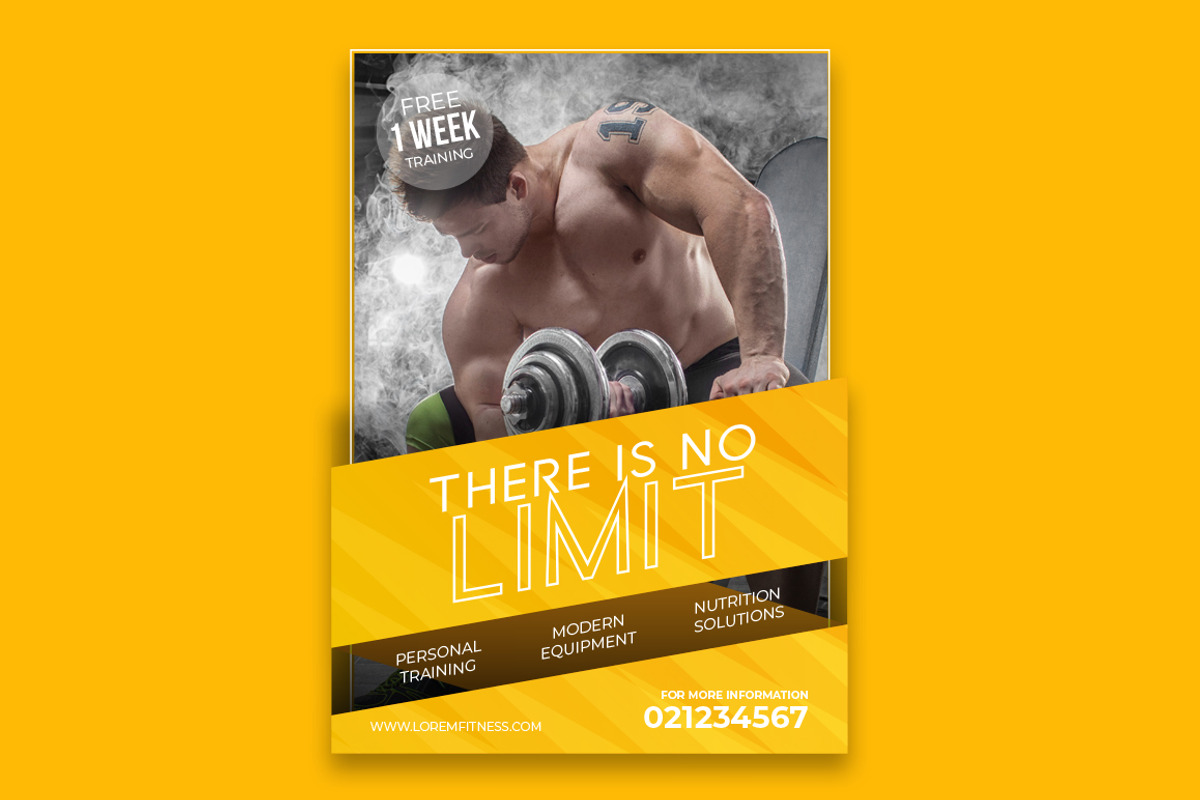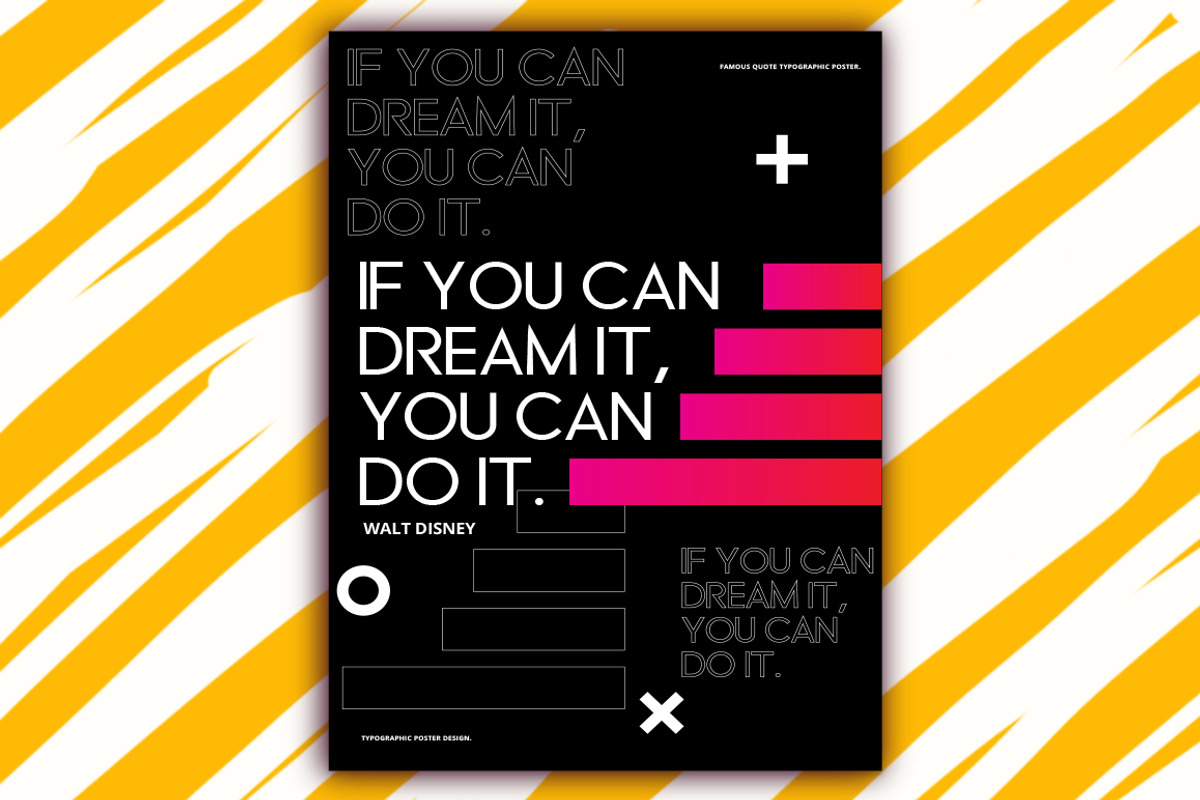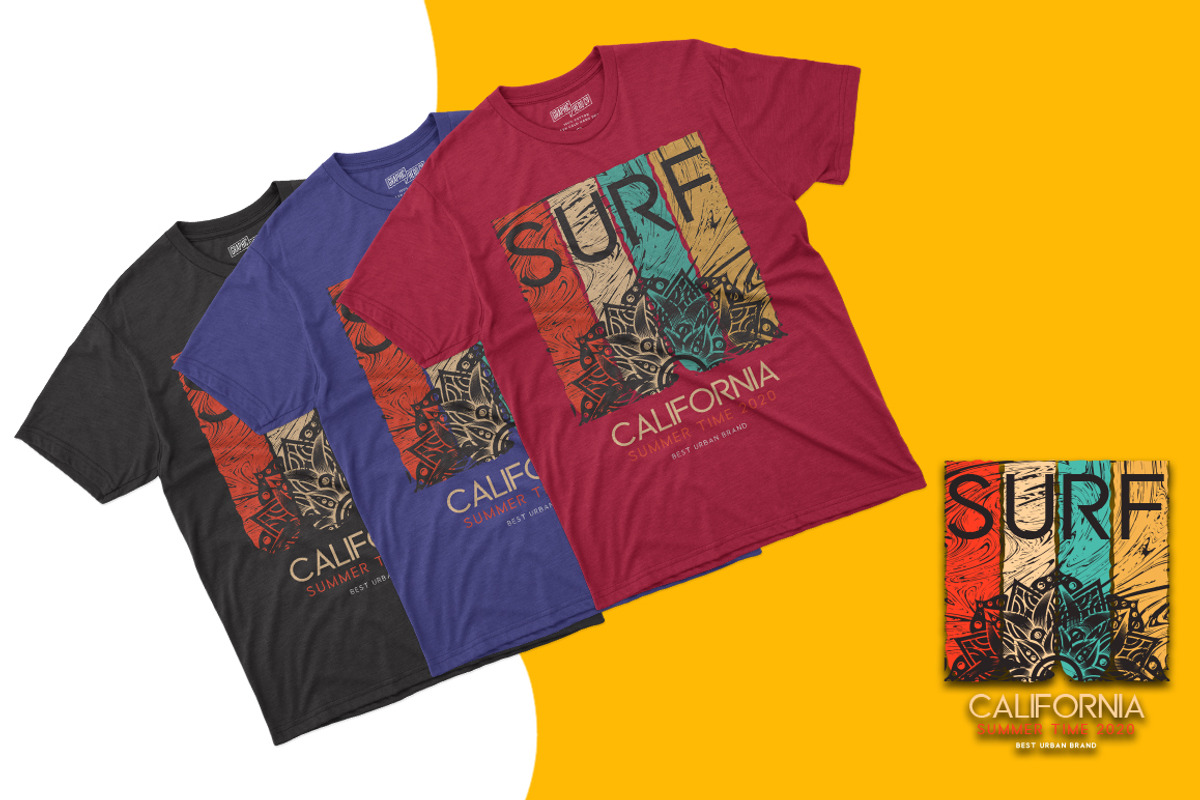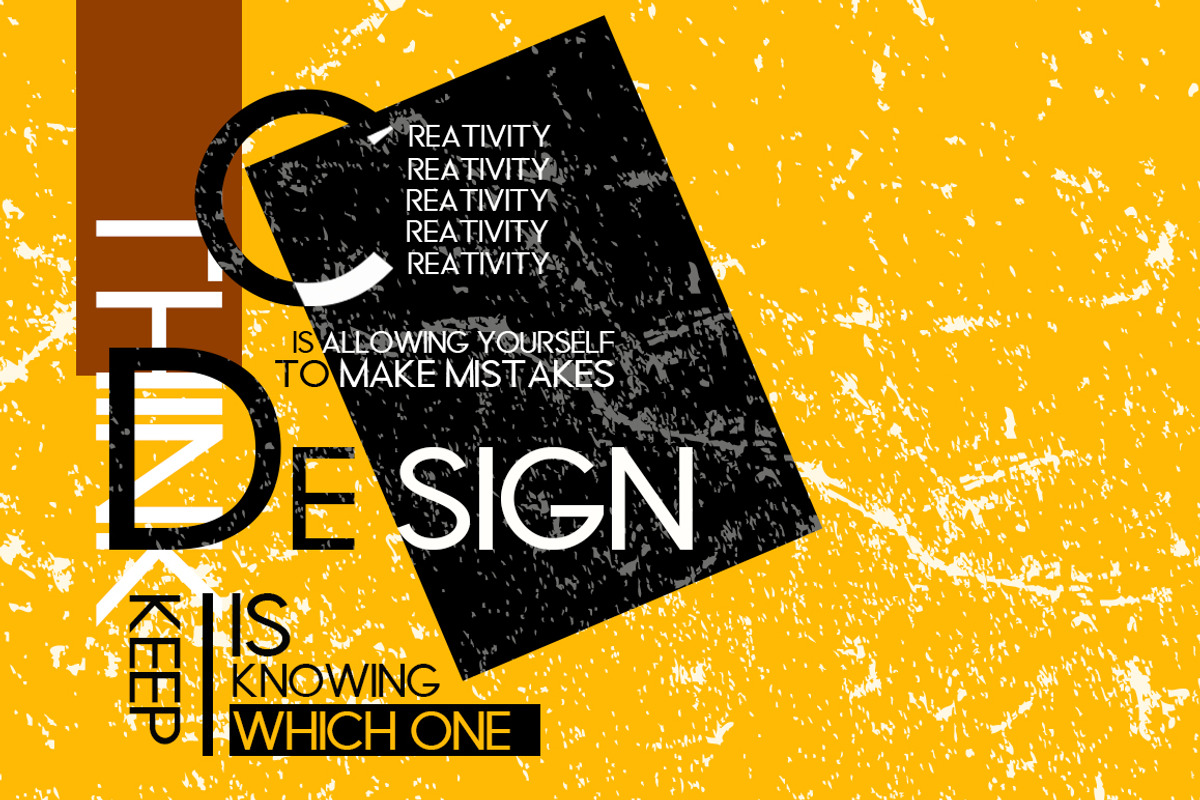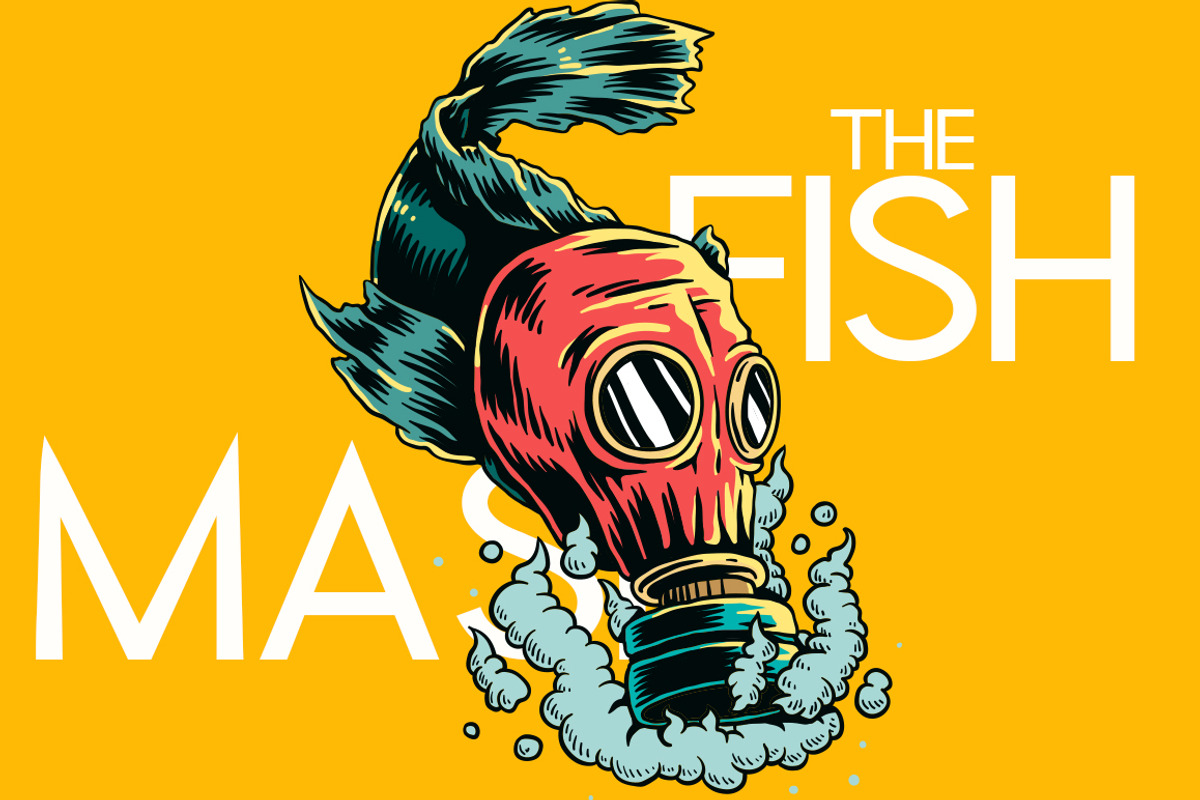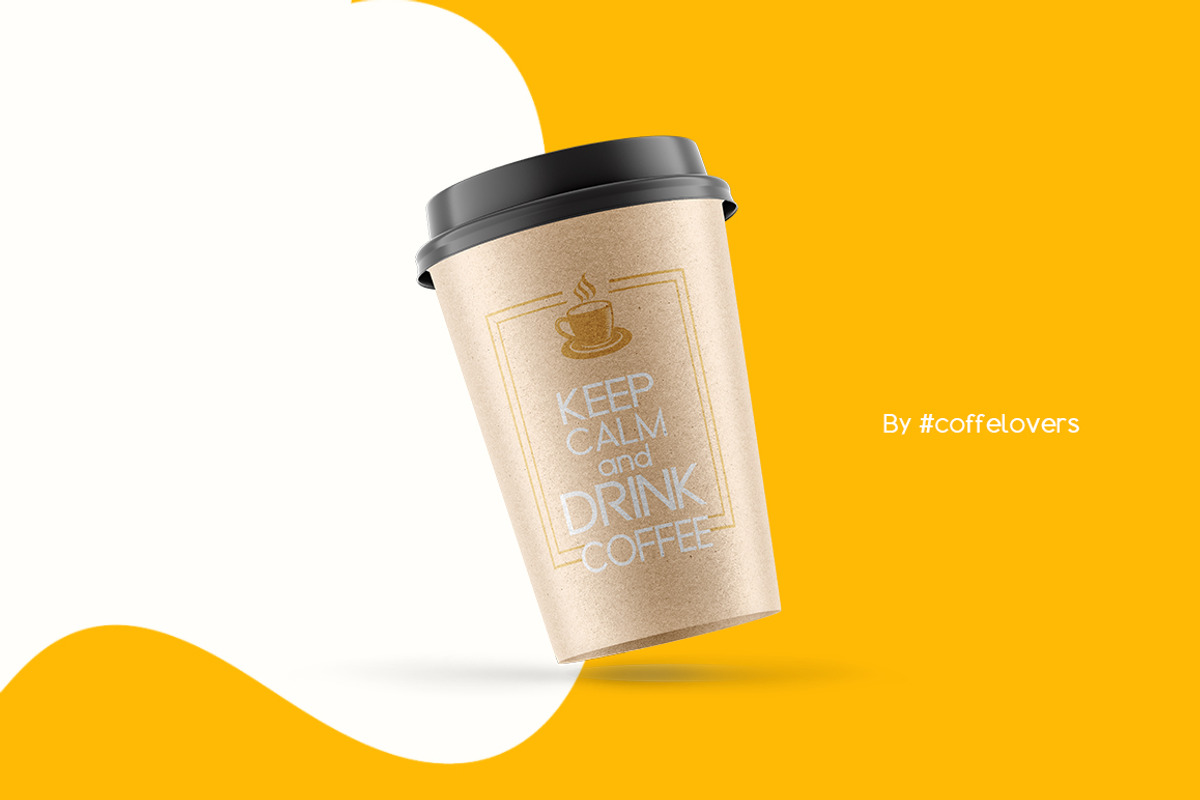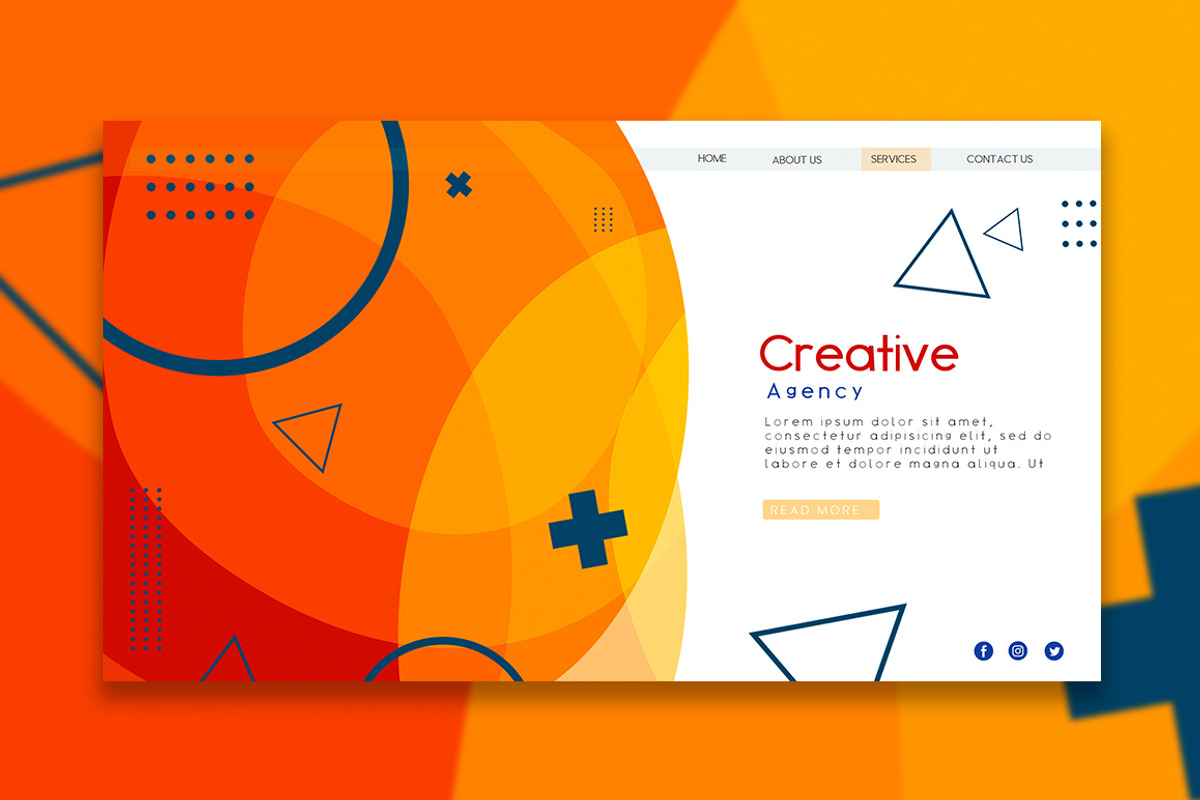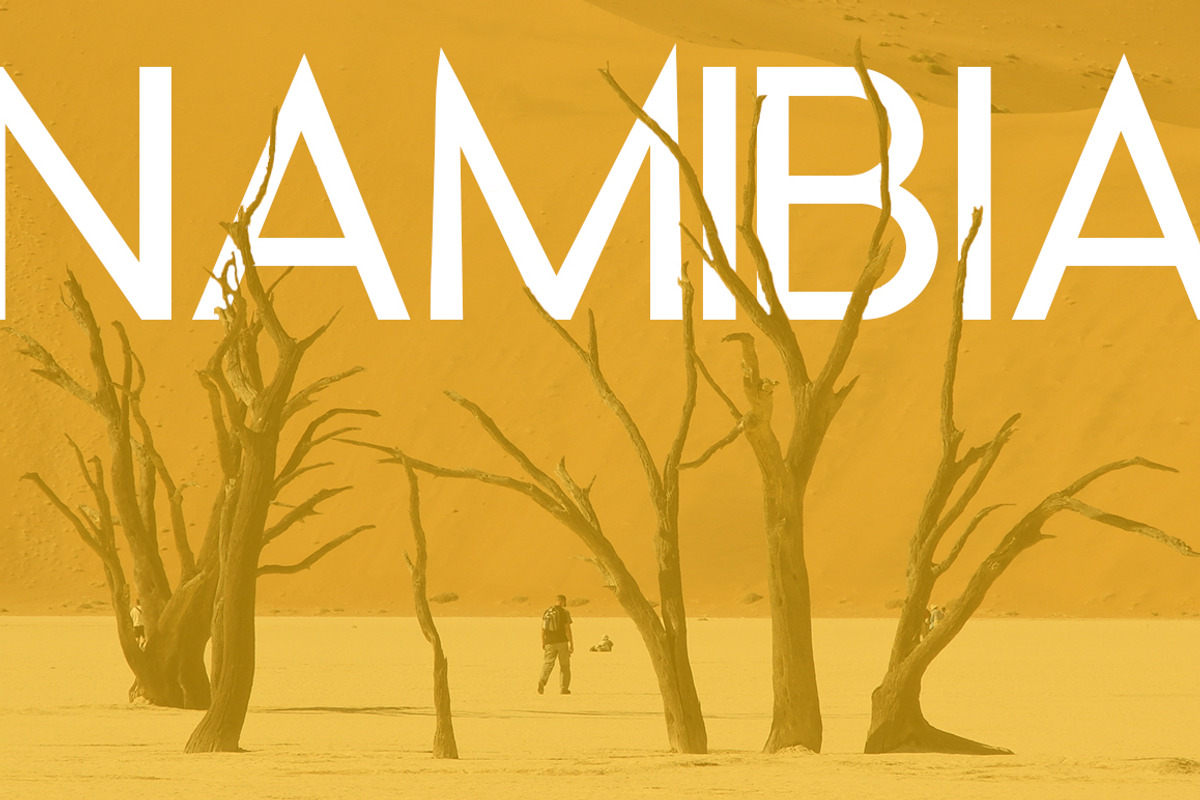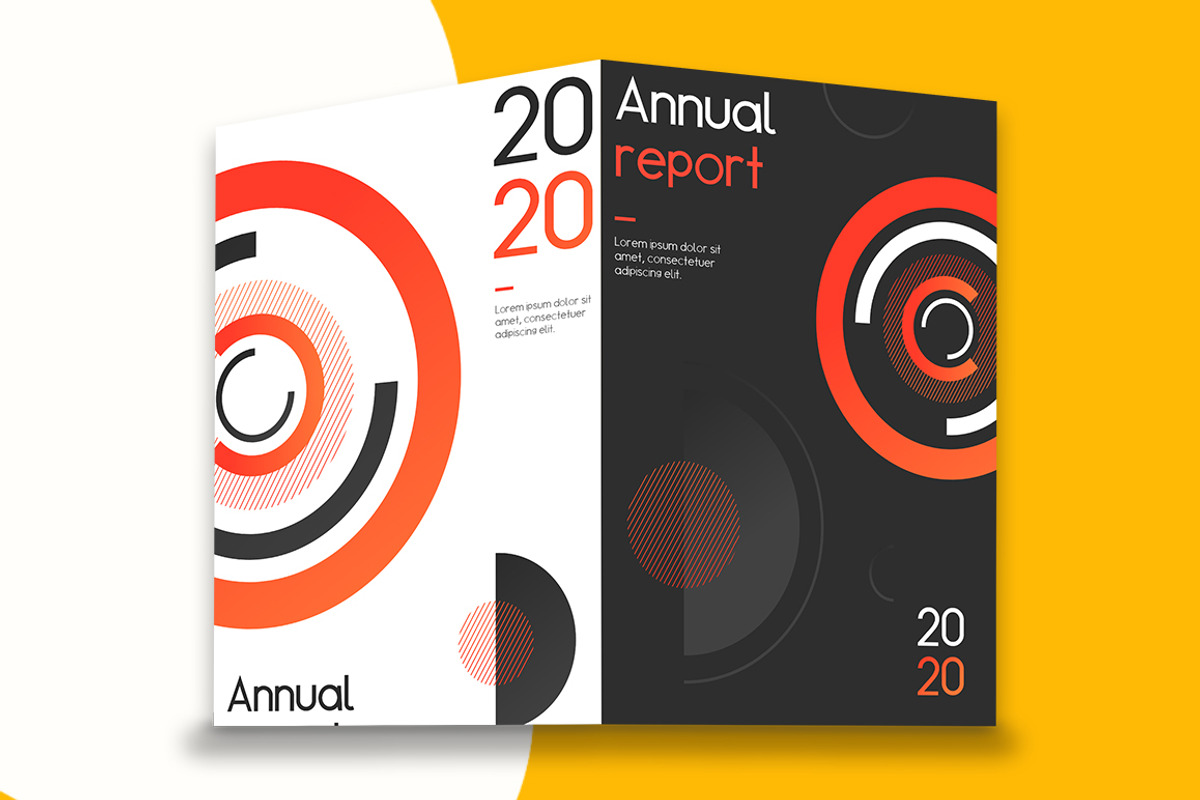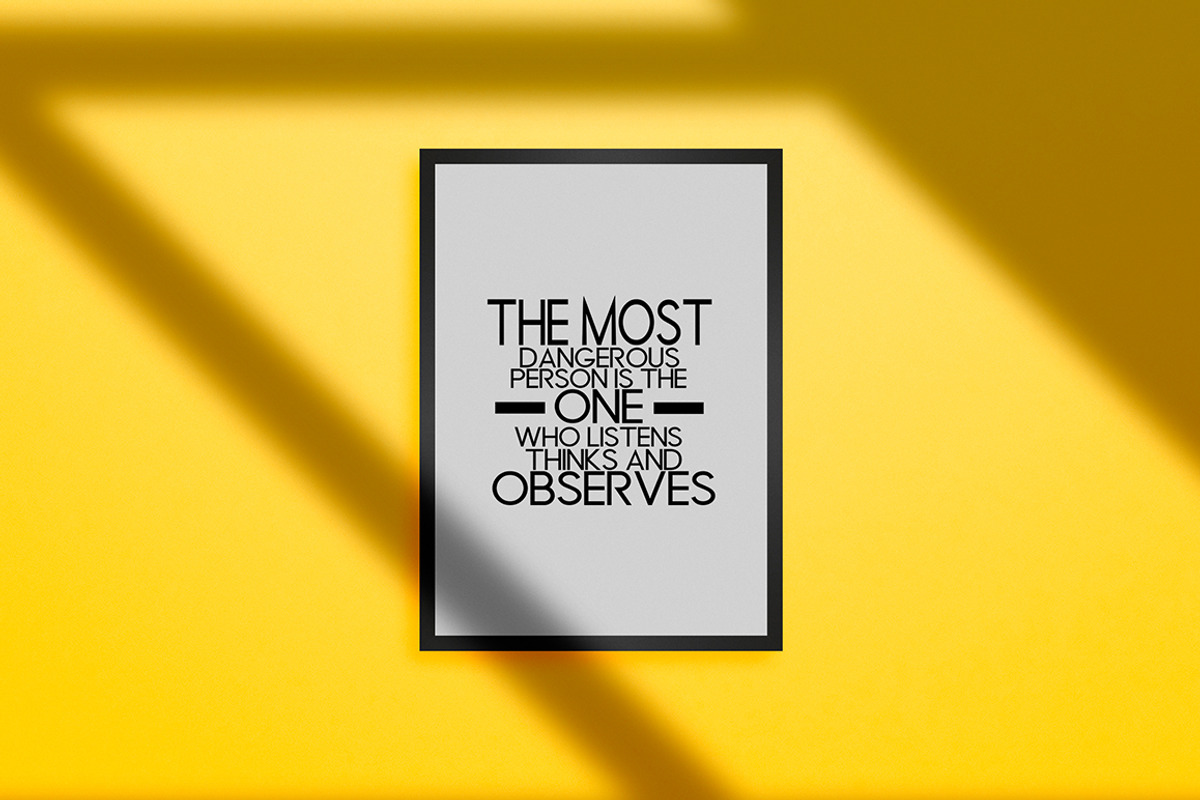
Evrim Sans Serif Font
Evrim is a fresh, geometric, sans-serif font family inspired by the iconic typefaces like Futura and Avant-Garde. Evrimhas a big x-height value, geometrical letterforms, sharp edges and very small stroke contrast as the neo-grotesque fonts from the 20th Century. The typeface is versatile and can be successfully used in Magazines, Posters, Branding, Websites, etc.
- 6 Weights
- Extended Latin Support
- 400+ Glyphs Set
- OpenType Features